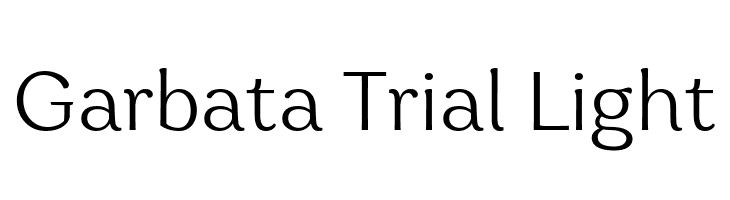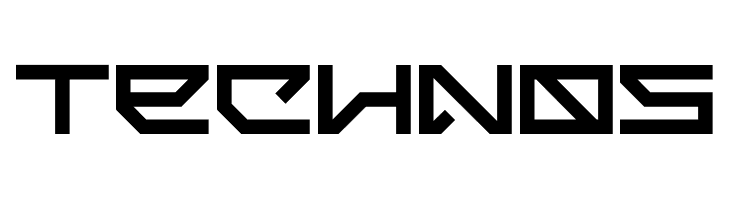
A dynamic and expressive script font with a fluid, handwritten style.
A modern, geometric sans-serif font with a clean and sleek appearance.
Bold, geometric icon set for signage and wayfinding.
A whimsical and artistic font featuring playful, hand-drawn illustrations.
A bold, decorative font with modern and vintage elements.
A bold, geometric font with angular shapes and a modern aesthetic.
A bold, brush-style font with dynamic and expressive strokes.
A modern, semi-condensed font with a clean and professional look.
A modern, geometric font with thin strokes and a sleek, futuristic style.